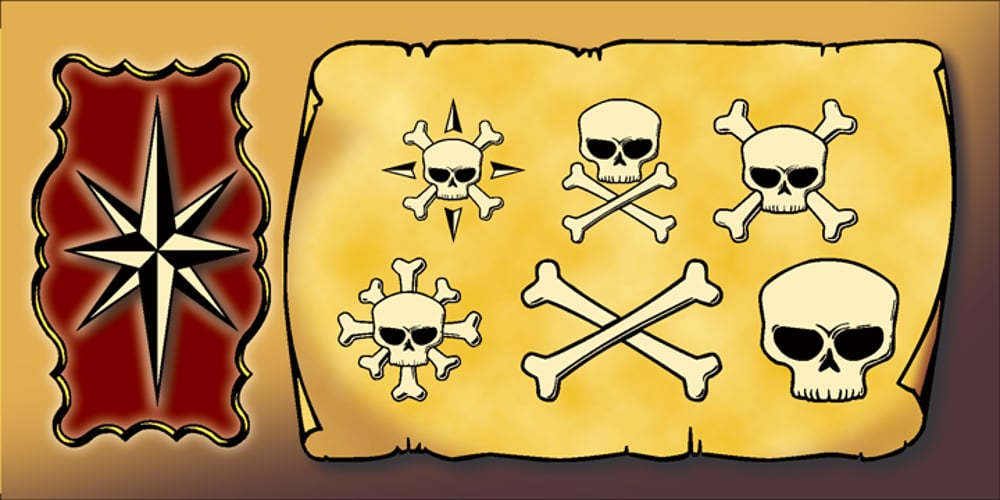
PR Mapping
PR Mapping font
PR Mapping Font Family was designed by Peter Rempel and published by PR Fonts. PR Mapping contains 1 styles and family package options. This font provides a variety of symbols for decorating maps simulating those of the sixteenth to nineteenth centuries. For fans of piracy, there is a range of skull and crossbones imagery. The font also includes cartouches, scrolls and symbols for mountains, hills and castles of various sizes.